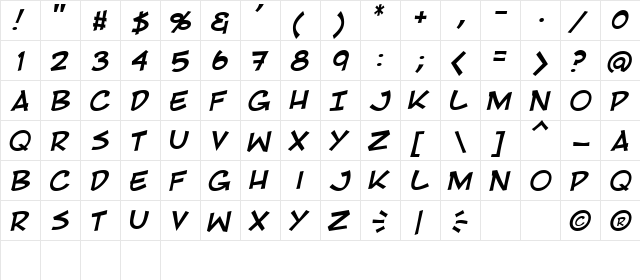
RivenShield Italic
Design Context for RivenShield Typeface
RivenShield is a composed and adaptable typeface that performs quietly and consistently across a wide range of design contexts. The slanted form adds forward momentum and visual energy.
Pro Tip: Try RivenShield for annotation and caption copy alongside an upright companion — the contrast in angle creates a dynamic but ordered typographic system.